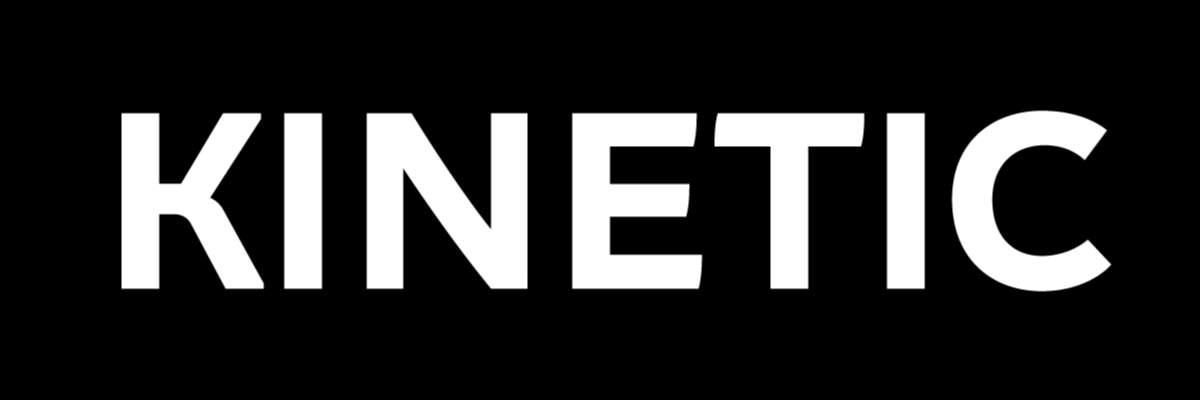
Typography as we know it has taken on many different shapes: we've cast them into metal, cut them out of woodblocks, painted them across awnings and signs, and scrawled them onto our most personal letters.
Although the printed word may be static and inaccessible, the type that we interact with on our screens is not. Typography on the web can be kinetic; malleable; and interactive. With the aid of programming, digital letterforms can be playful and reactive to its environment and the people that view them. New tools and frameworks have been developed over the last decade that present us with opportunities to shape the content on our screens — and anyone can learn to use these tools.
P5.js will be the main programming library for the workshop, a beginner-friendly Javascript framework. Students who are new to programming are welcome, as well as intermediate programmers. Techniques covered in this course will include building visual compositions with code, manipulating pixel and vector data, and implementing them in real-time applications on the browser.
During the course of three days, students will solidify their understanding of the concept of programming, gain familiarity with the p5.js library, and create typographic projects of computational nature.